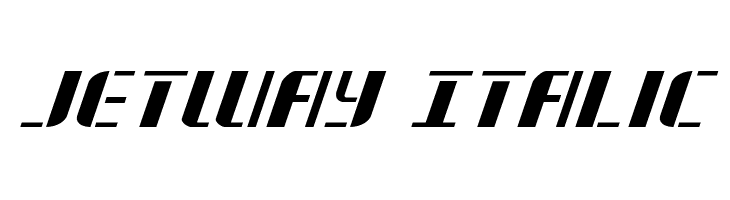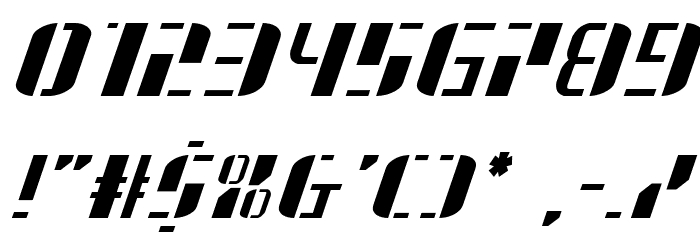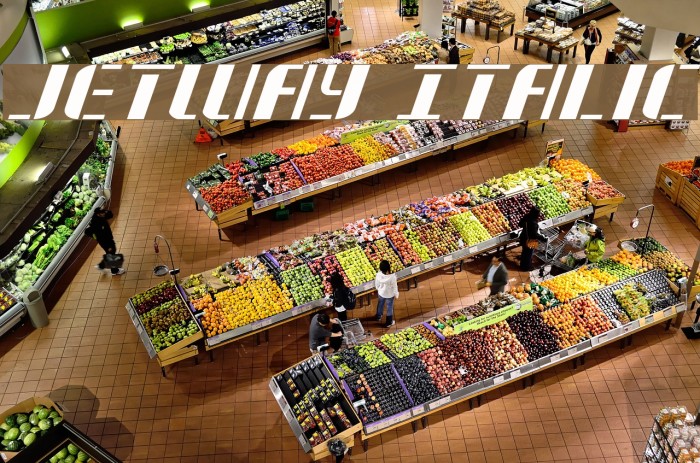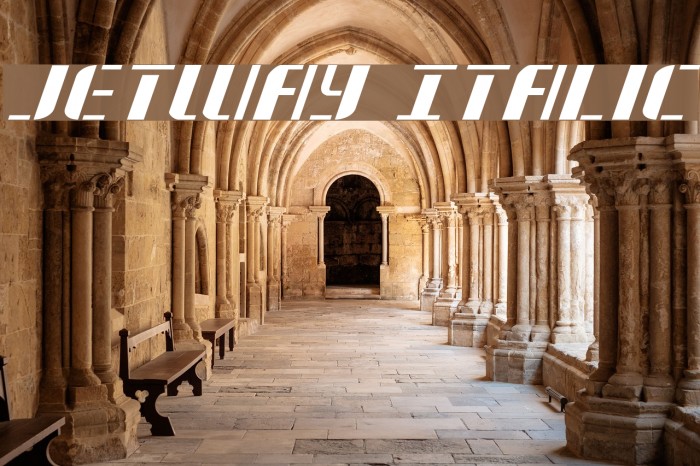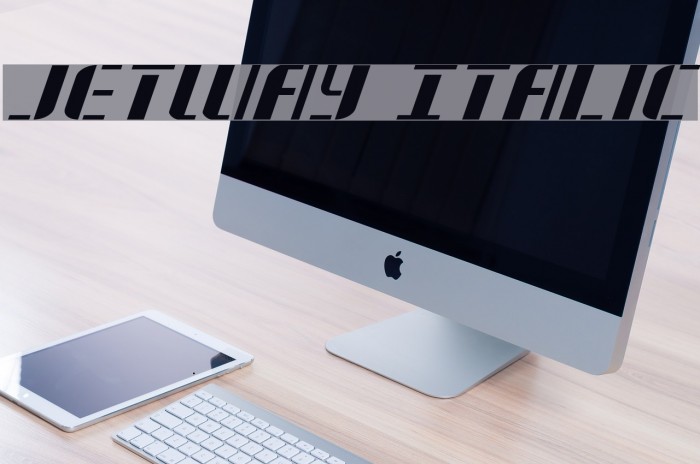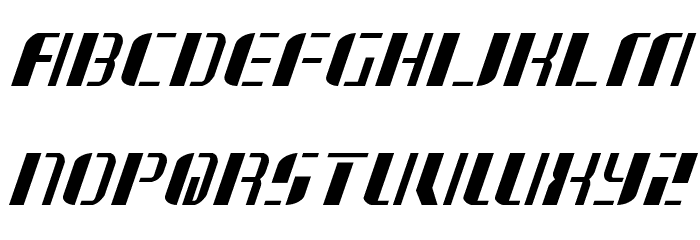
Jetway Italic Font
Jetway Italic Description
This font features a bold, italicized style with a futuristic and dynamic appearance. The characters are designed with sharp angles and a slanted orientation, giving a sense of movement and speed. The strokes are thick and consistent, creating a strong visual impact. The font's unique cut-out sections within each letter add a modern, edgy feel, making it stand out in any design. Its geometric structure and high contrast between the thick and thin parts of the letters enhance its readability while maintaining an artistic flair.
| Use Case | Logos, Headlines |
| Proposed Projects | Ideal for technology branding, sports team logos, futuristic posters, and dynamic advertising campaigns. |